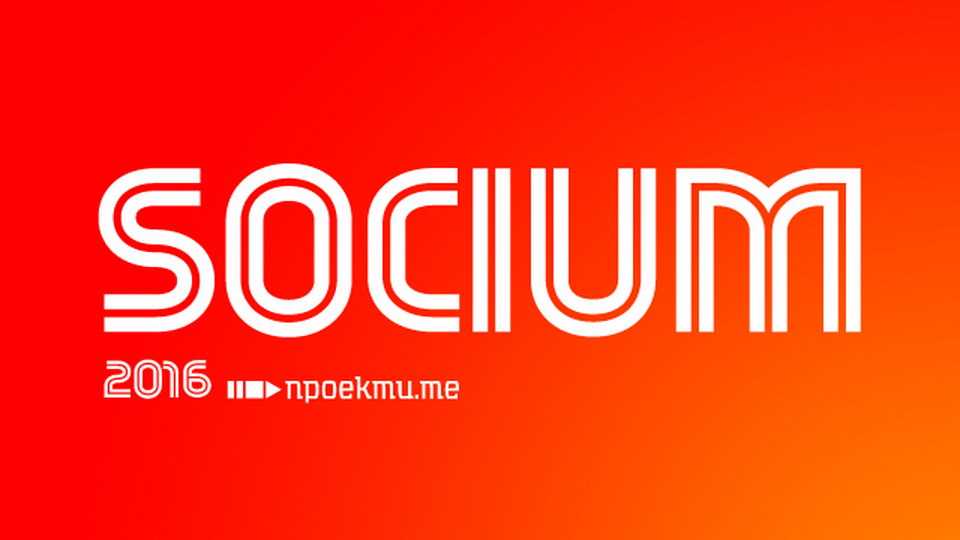
Download Socium font, a display typeface, featuring a fresh look at the aesthetics of Bulgarian socialism that interprets in a memorable way the achievements of the Bauhaus.
Designer: Svetlin Balezdrov